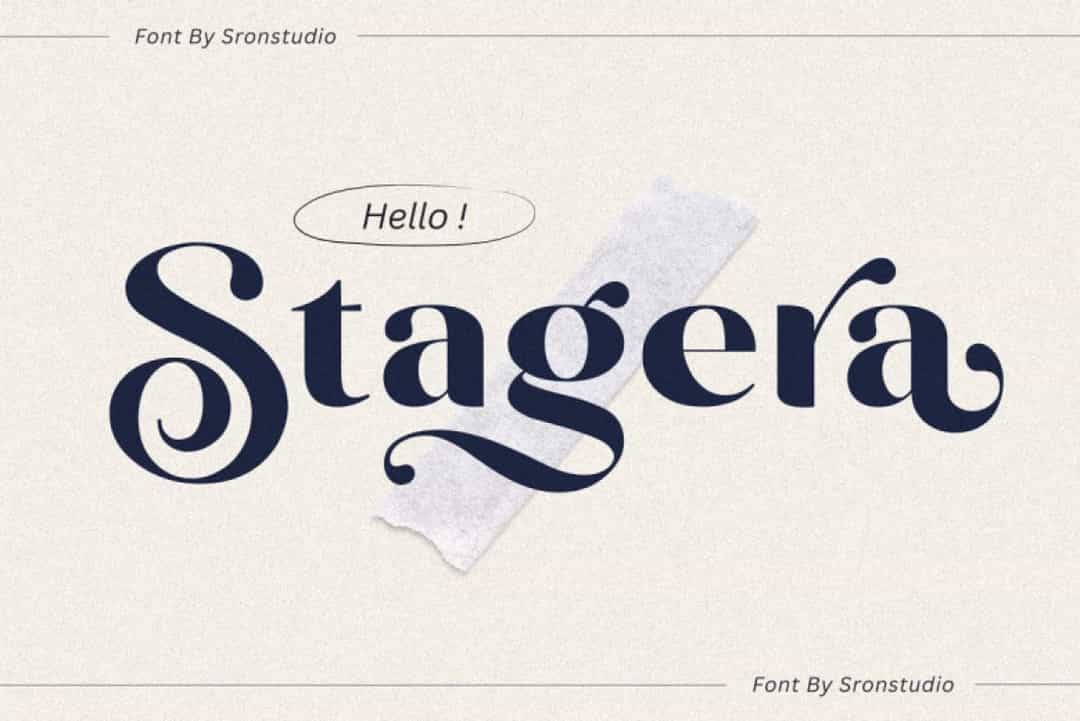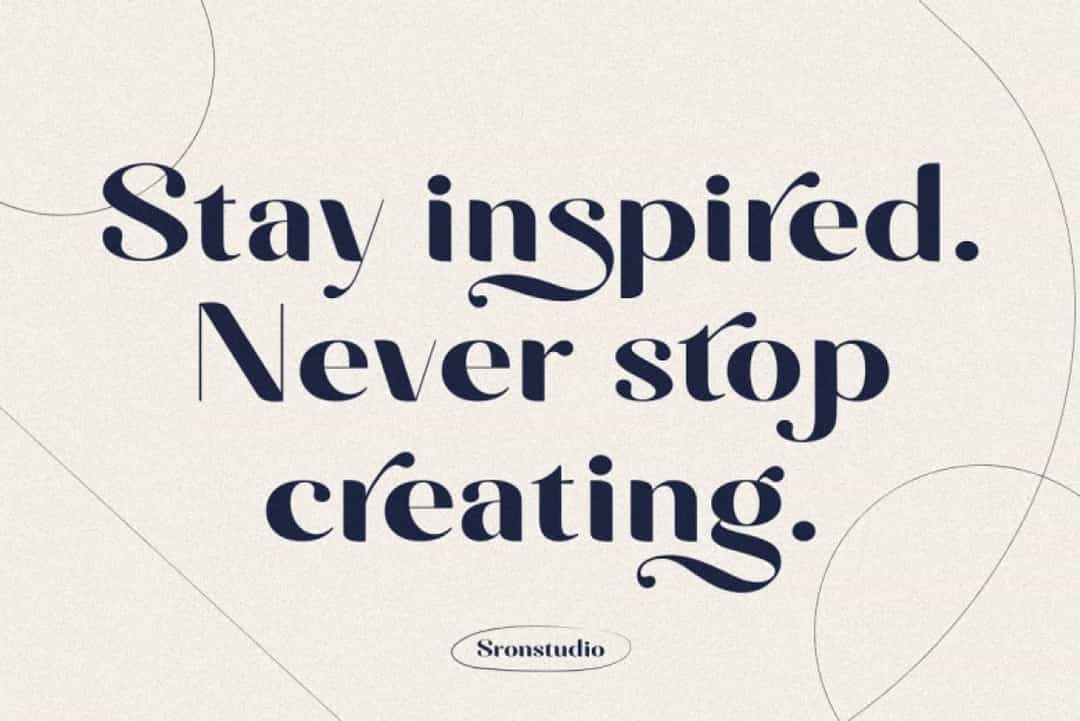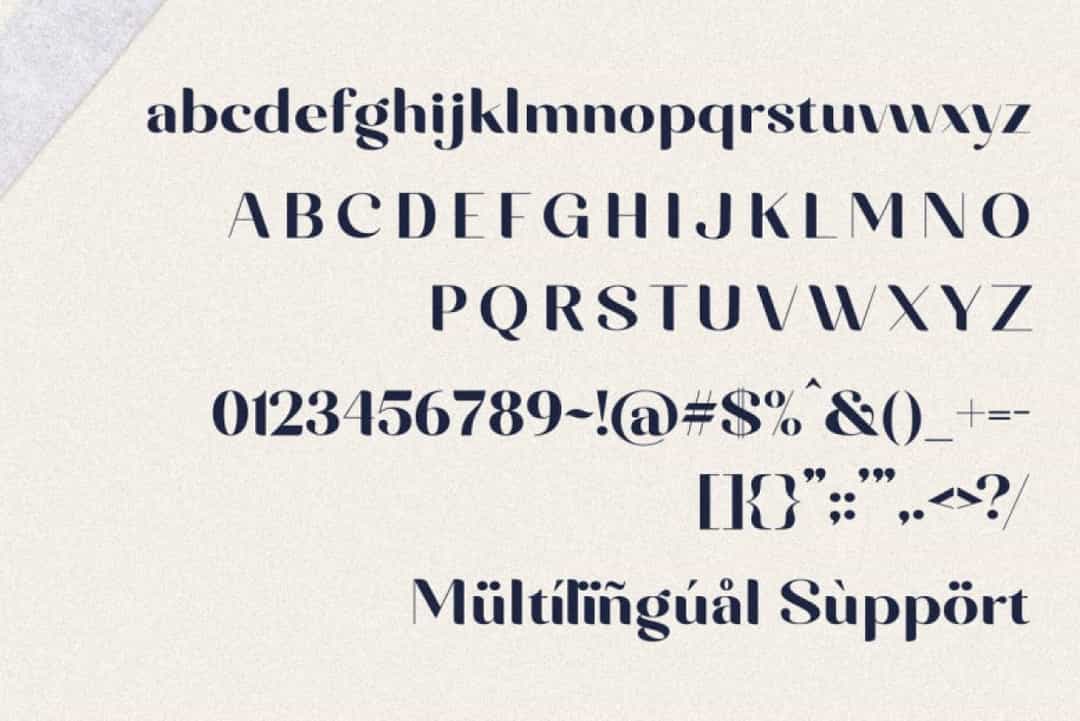
Stagera is an elegant sans serif typeface that perfectly balances elegance and versatility, featuring an alluring alphabet and appealing alternate characters to provide a stunning typographical experience. “Stagera” brings sophistication and beauty to editorial or branding projects as well as any task requiring eye-catching design elements, adding quality design that stands out.